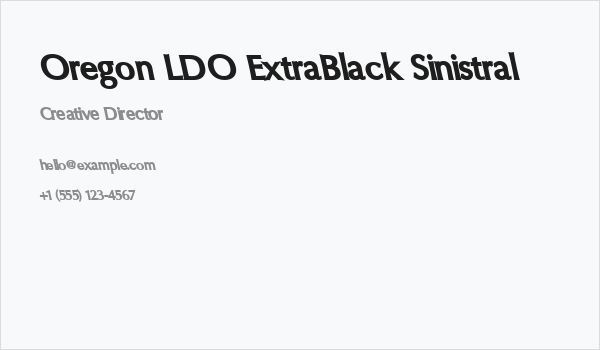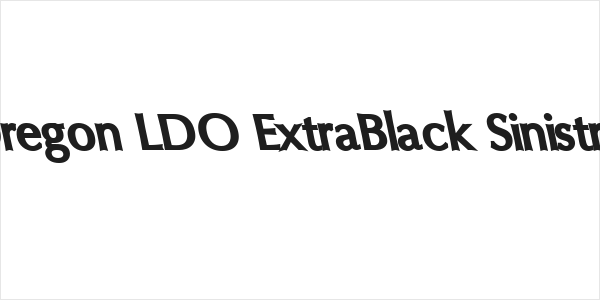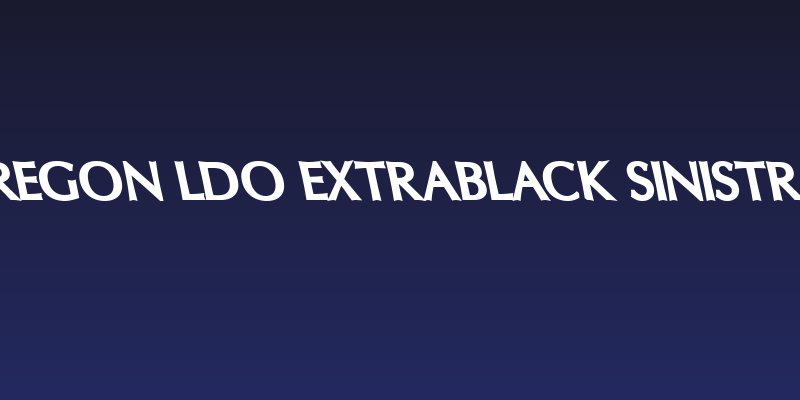
Oregon LDO ExtraBlack Sinistral Font
Oregon LDO ExtraBlack Sinistral Description
This font features a bold and dynamic style with a strong presence. The characters are designed with a slight forward slant, giving them a sense of motion and energy. The strokes are thick and consistent, contributing to a robust and impactful appearance. The uppercase and lowercase letters maintain a uniform weight, while the numbers and special characters are crafted to match the overall aesthetic. The font's boldness and unique slant make it stand out, suitable for projects that require a strong visual impact.